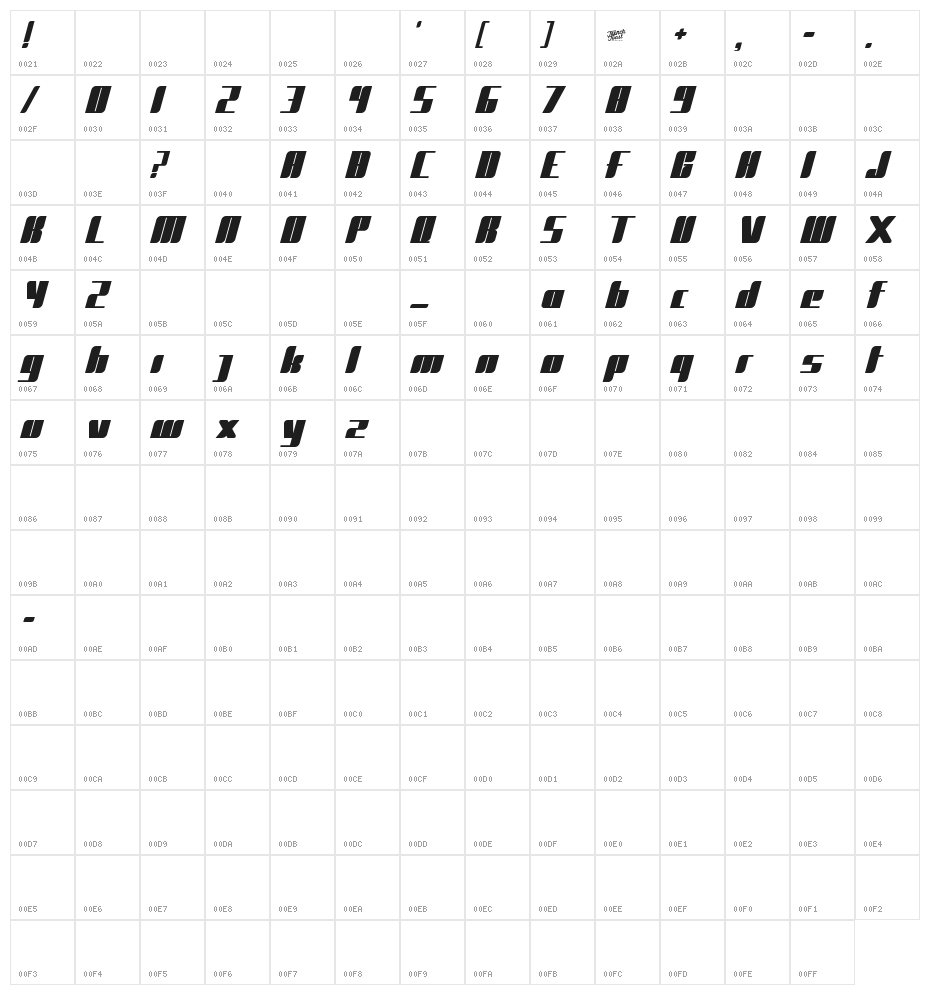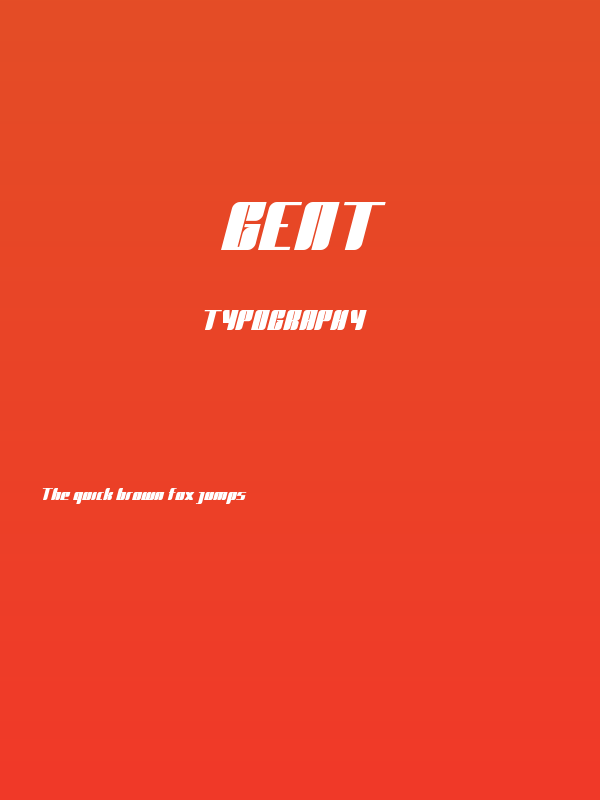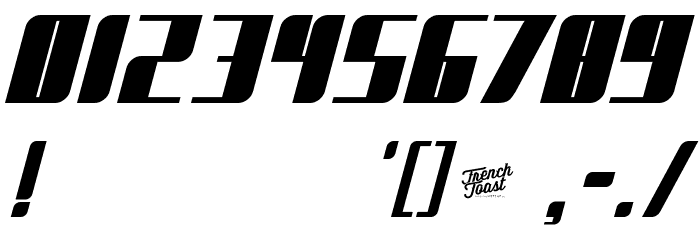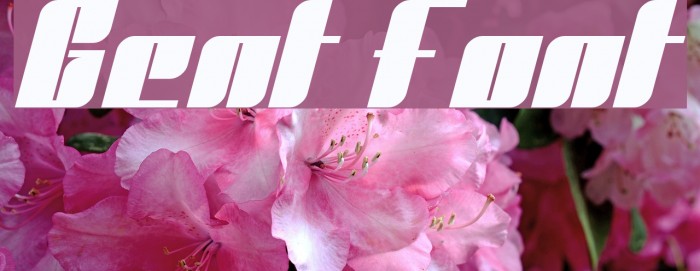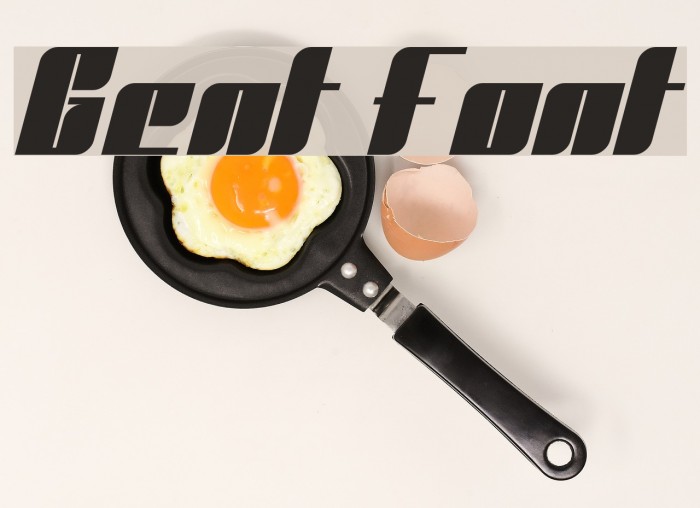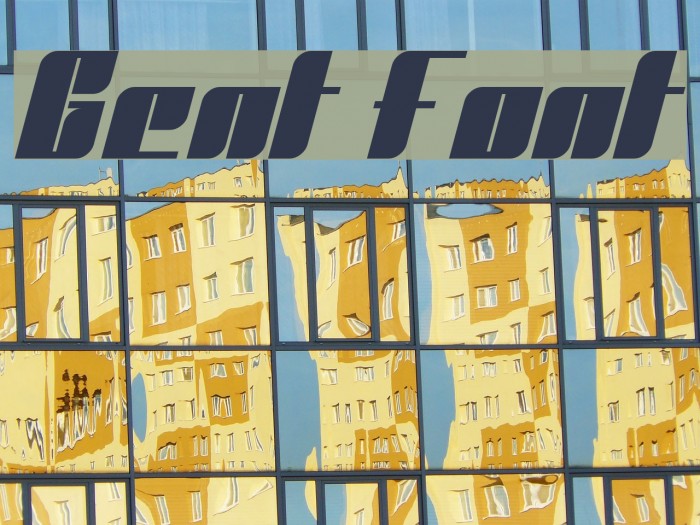
Gent Font
Gent Description
This font features a bold and dynamic style with a futuristic flair. The uppercase letters are angular and geometric, with a strong presence that commands attention. The lowercase letters maintain a similar aesthetic, providing a cohesive look across all text. Numbers are designed with the same boldness, ensuring consistency throughout. Special characters are included, adding versatility to the font's usage. The overall design is sleek and modern, making it suitable for projects that require a contemporary and impactful typeface.